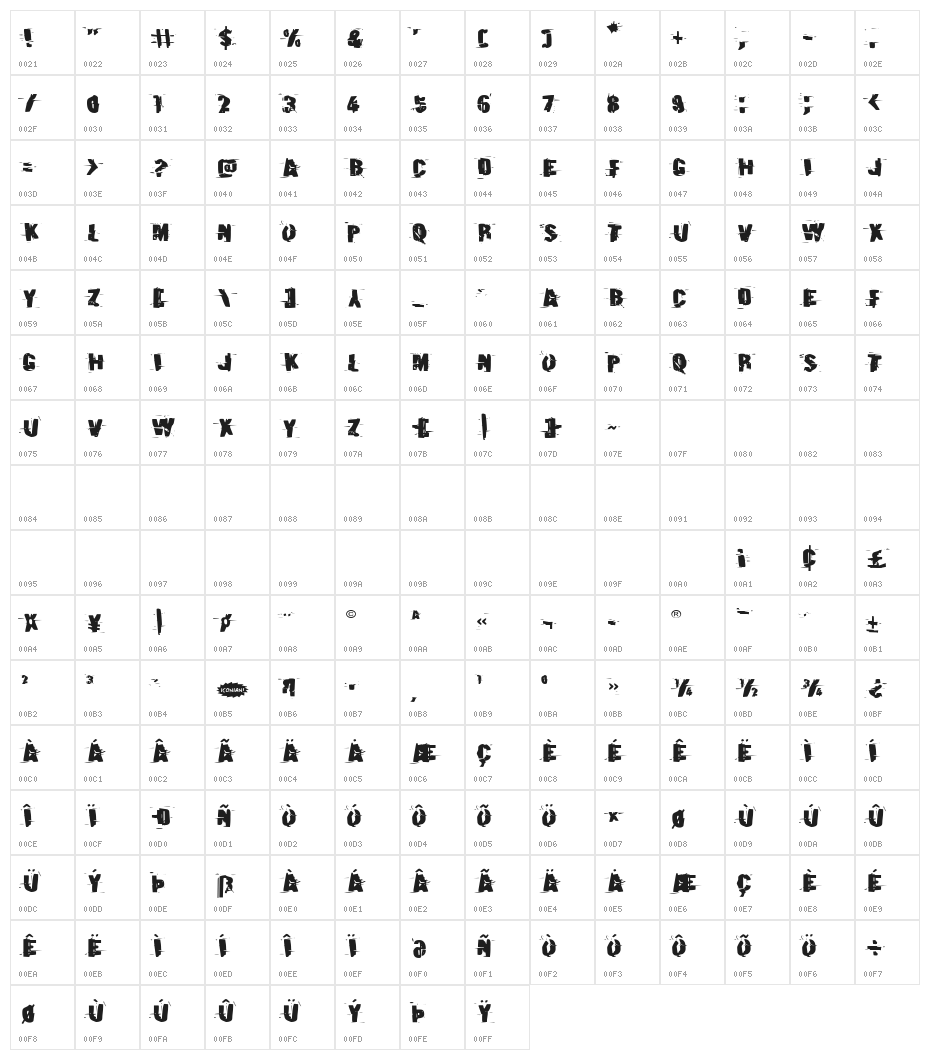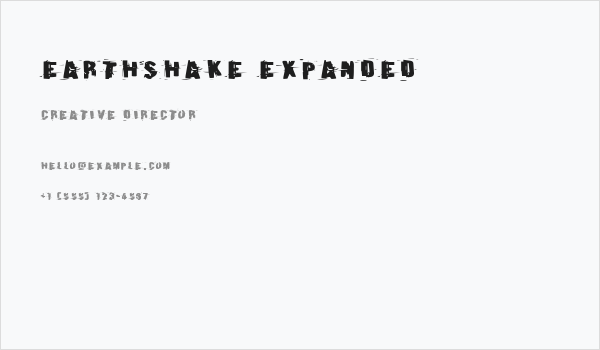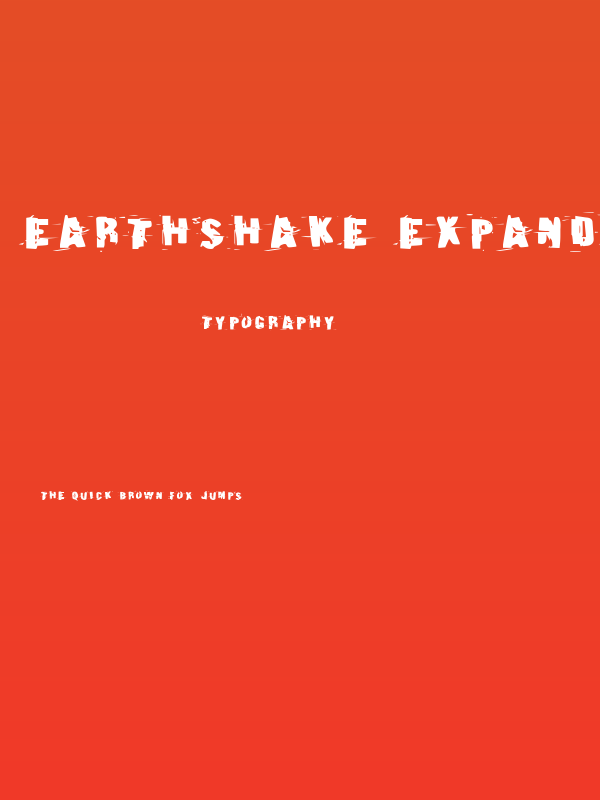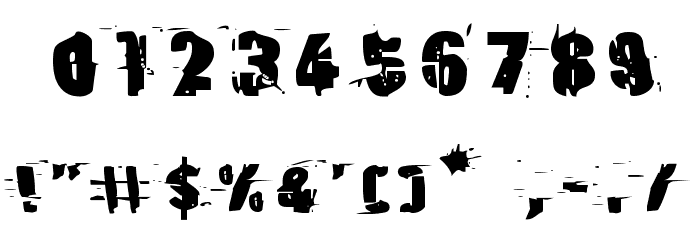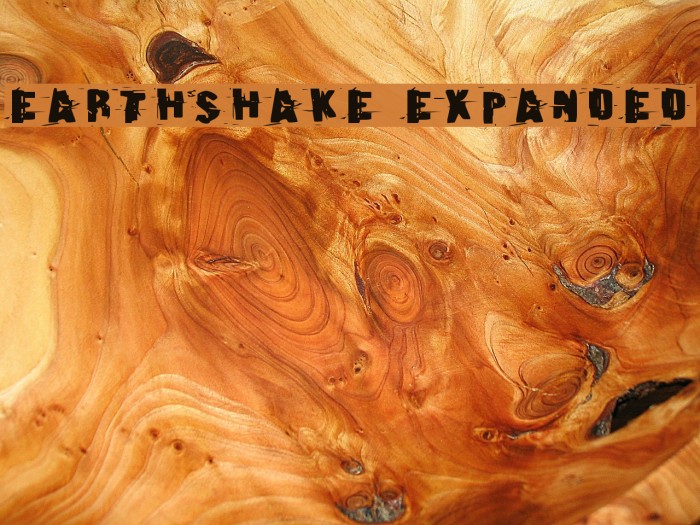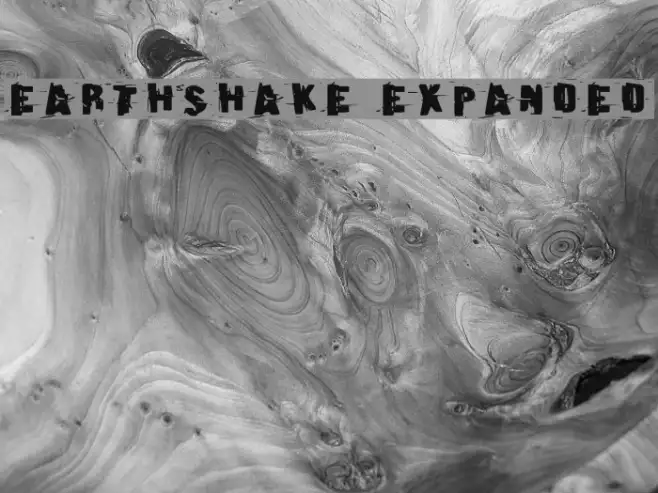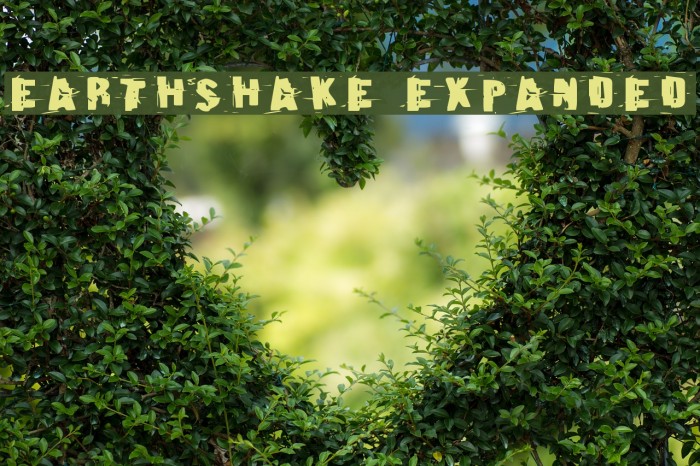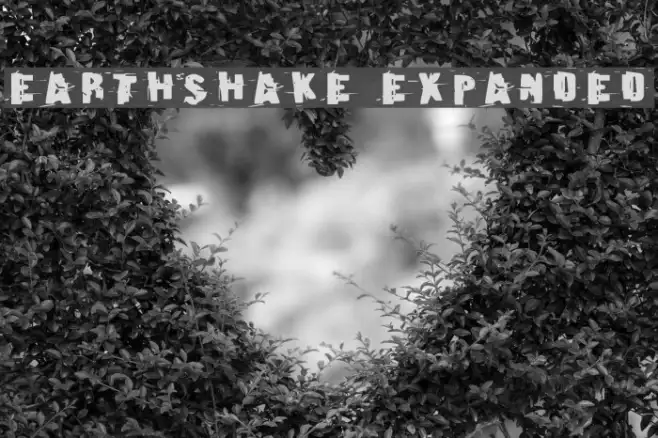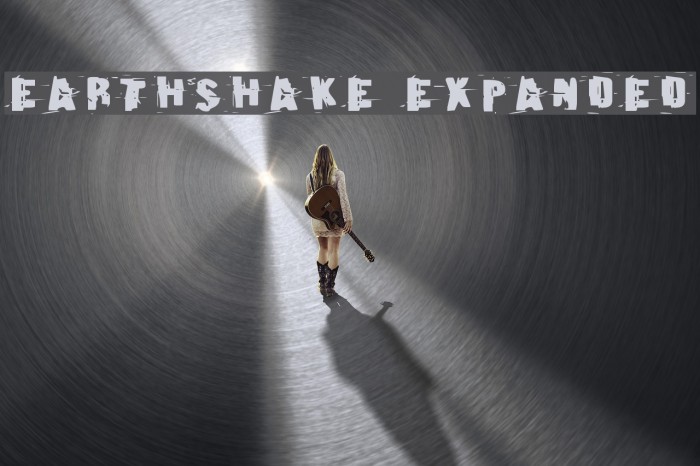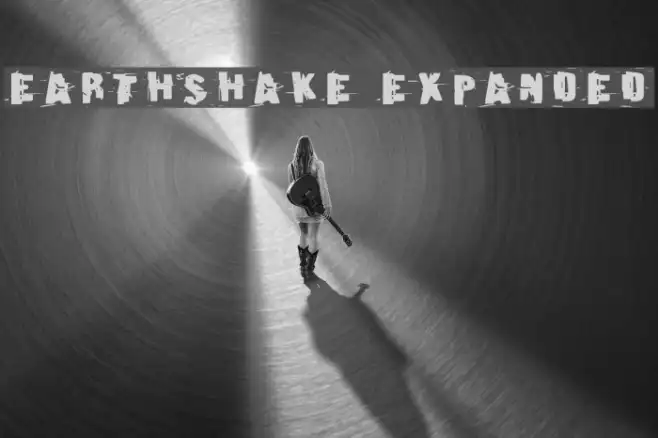
Earthshake Expanded Font
Earthshake Expanded Description
This font features a bold, distressed style with a grunge aesthetic. Each character appears as if it has been weathered or eroded, giving it a rugged and edgy appearance. The letters are uppercase and lowercase, with numerals and a selection of special characters. The design includes irregular edges and a textured look, making it ideal for projects that require a raw, impactful visual. The font's expanded width adds to its commanding presence, making it suitable for attention-grabbing headlines or artistic designs.
EARTHSHAKE-EXPANDED UPPERCASE
EARTHSHAKE-EXPANDED LOWERCASE
EARTHSHAKE-EXPANDED OTHER CHARS
| Overall Style | Grunge, Edgy |
| Use Case | Headlines, Posters, Artistic Designs |
| Proposed Projects | Ideal for music album covers, posters, urban-themed designs, and any project needing a gritty, impactful look. |